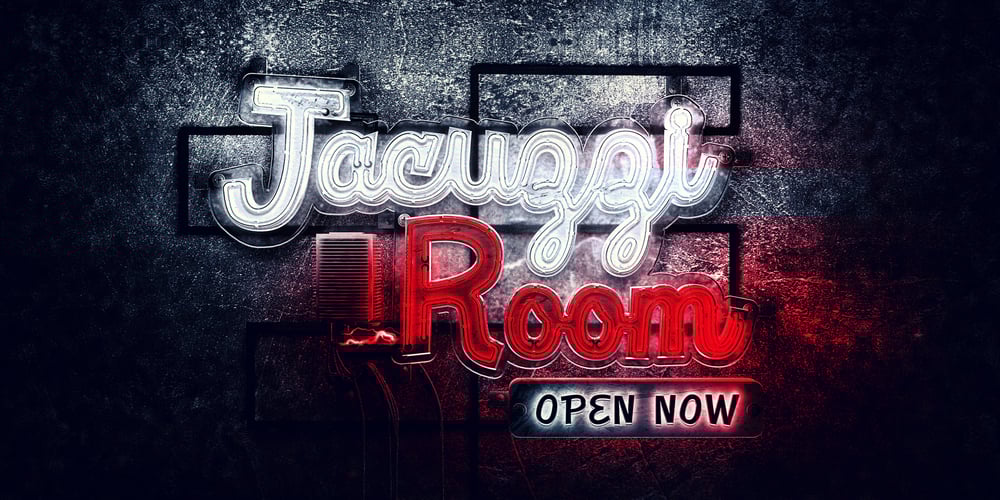
Jacuzzi Room
Jacuzzi Room font
Jacuzzi Room Font Family was designed by Dathan Boardman and published by Rocket Type. Jacuzzi Room contains 1 styles and family package options. Jacuzzi Room is now open 24 hours day and we’ve got unlimited drinks and hors d’oeuvres available. Jacuzzi Room is a cheery script font inspired by the ubiquitous Beverly Hills Hotel sign, capturing the same gestural yet timeless quality. Have a stroll through vintage era Beverly Hills and take a dip into the Jacuzzi Room. Adds a ton of fun mid century chic flair to any design whether it be titling, headlines, signage, t-shirts book covers.